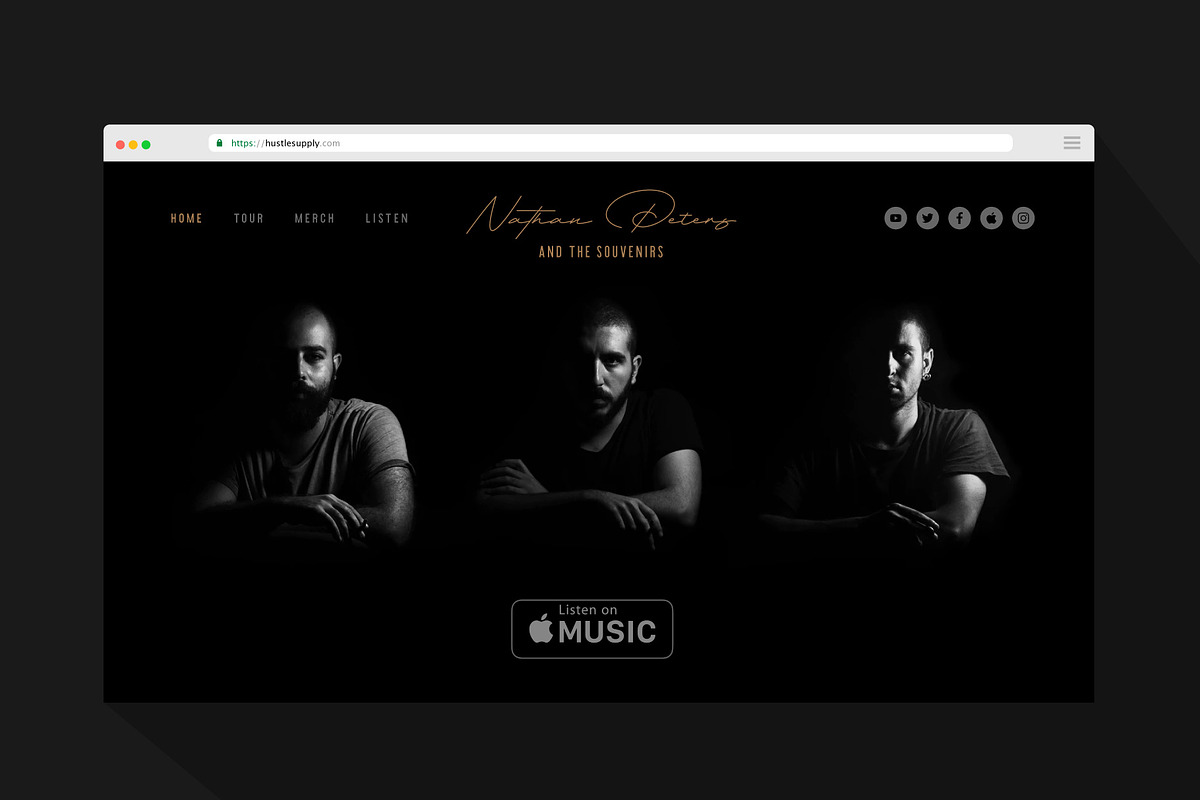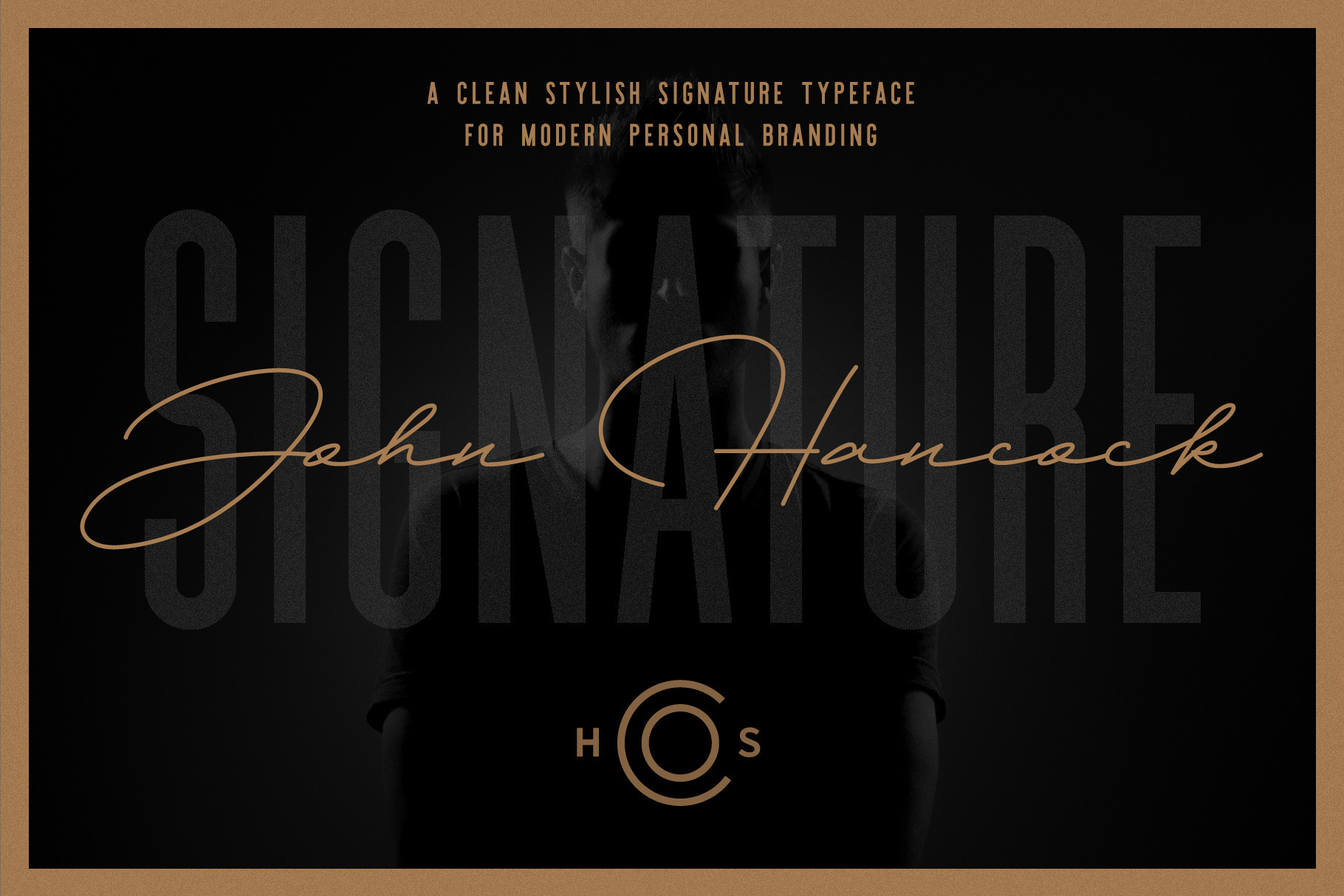
John Hancock - A Signature Font
Your New Go-To Signature Typeface!
Your John Hancock, this Typeface is exactly what you think it is. Your go-to Autograph or Signature Typeface for branding & advertising. Whether you're creating a logo, watermark for a photographer / artist or creating a stylish ad campaign, this Typeface is an incredible addition to your font library.
This Typeface includes over 50 ligatures, allowing you to give a more natural flow to your designs. This Signature Typeface includes Regular & Bold weights.